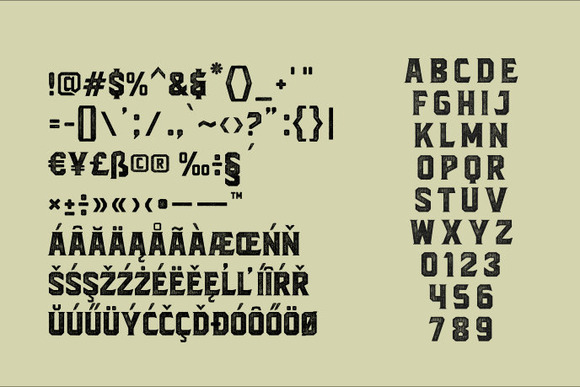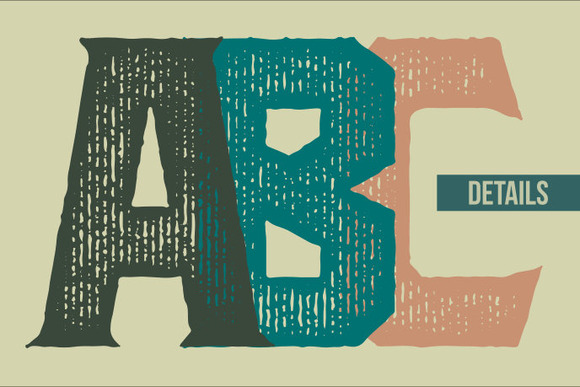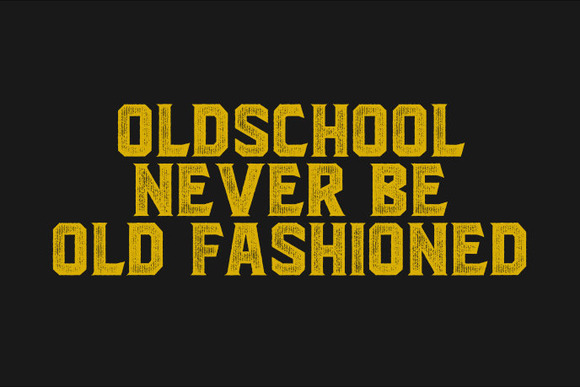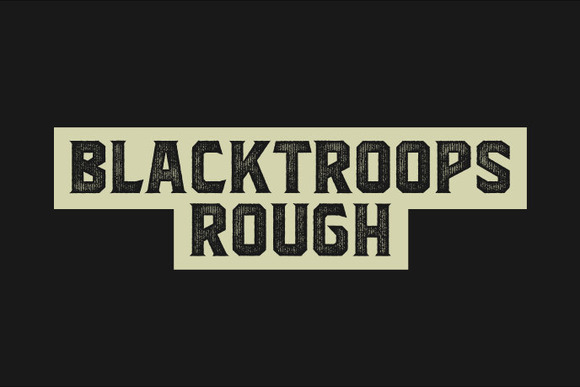
Introducing Blacktroops Rough: The Ultimate Grunge Distressed Font
Are you tired of using the same old fonts for your designs? Do you want to add a touch of grunge and distressed texture to your projects? Look no further than Blacktroops Rough, the latest addition to the Blacktroops family. This versatile font is perfect for designers and crafters looking to add a unique edge to their work.
What is Blacktroops Rough?
Blacktroops Rough is a grunge distressed version of the popular Blacktroops font. This Rough typeface is designed to give your text a worn, vintage look that’s perfect for a variety of applications. From headings and logos to posters and book covers, Blacktroops Rough is the perfect choice for anyone looking to add a bit of grit and texture to their designs.
Uses for Blacktroops Rough
One of the best things about Blacktroops Rough is its versatility. This font can be used for a wide range of purposes, including:
- Headings and titles: Add a bold, grunge touch to your headings and titles with Blacktroops Rough.
- Logos: Create a unique and eye-catching logo with this distressed font.
- Posters: Add a vintage touch to your posters with Blacktroops Rough.
- Book covers: Give your book covers a gritty, edgy look with this font.
- Mugs and bags: Use Blacktroops Rough to create custom designs for mugs, bags, and other merchandise.
- Newspapers and magazines: Add a touch of grunge to your publication with this font.
- Invitations: Create unique and eye-catching invitations with Blacktroops Rough.
Why Choose Blacktroops Rough?
So why choose Blacktroops Rough over other fonts? Here are just a few reasons:
- Unique look: Blacktroops Rough has a distinctive, grunge distressed look that’s sure to set your designs apart.
- Versatility: This font can be used for a wide range of applications, from headings and logos to posters and book covers.
- High-quality: This font is designed to be high-quality and clear, even at small sizes.
Tips for Using Blacktroops Rough
Here are a few tips for getting the most out of Blacktroops Rough:
- Experiment with different sizes: Blacktroops Rough looks great at a variety of sizes, from large headings to smaller body text.
- Pair with other fonts: Try pairing Blacktroops Rough with other fonts to create a unique and interesting look.
- Use it for emphasis: Use Blacktroops Rough to add emphasis to certain words or phrases in your designs.
- Don’t be afraid to get creative: Blacktroops Rough is a versatile font that can be used in a wide range of creative ways.